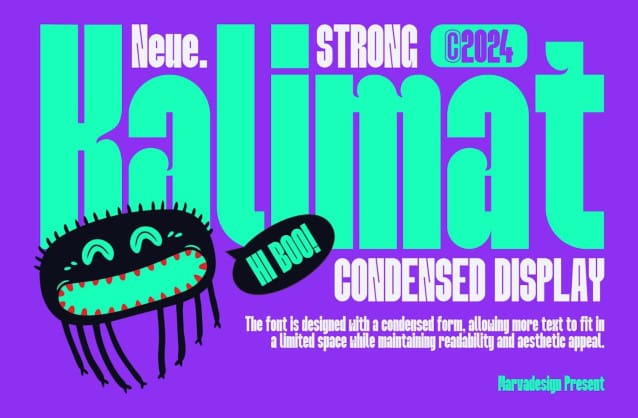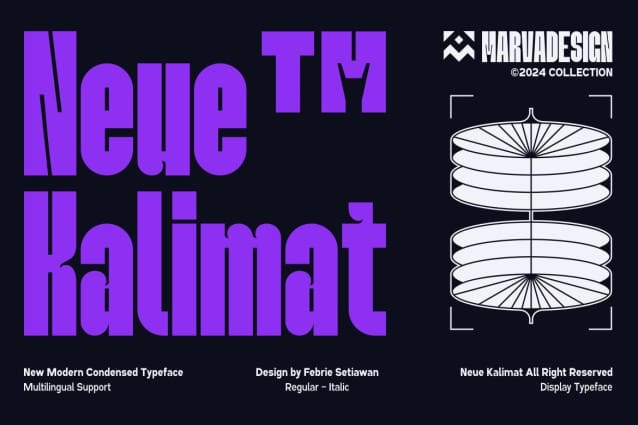
Neue Kalimat Font
Neue Kalimat Font – Condensed Display, a modern sans serif typeface designed for impactful, high visibility use. This font stands out for its unique character details, making it a great choice for headlines, posters, and other display purposes. The font is designed with a condensed shape, allowing more text to fit into a smaller space while maintaining readability and aesthetic appeal. Distinctive features One of the defining characteristics of the Neue Kalimat Condensed Display is the presence of distinctive features in certain characters.
These traits are particularly visible in certain lowercase and uppercase letters, giving the typeface a unique touch. The Neue Kalimat condensed screen is ideal for any design project requiring a strong, modern typographic presence. Its condensed nature makes it ideal for large screens, headlines and headlines where space is limited but impact is essential. The unique traits of certain typefaces provide a distinctive touch that can enhance branding, advertising and editorial design.